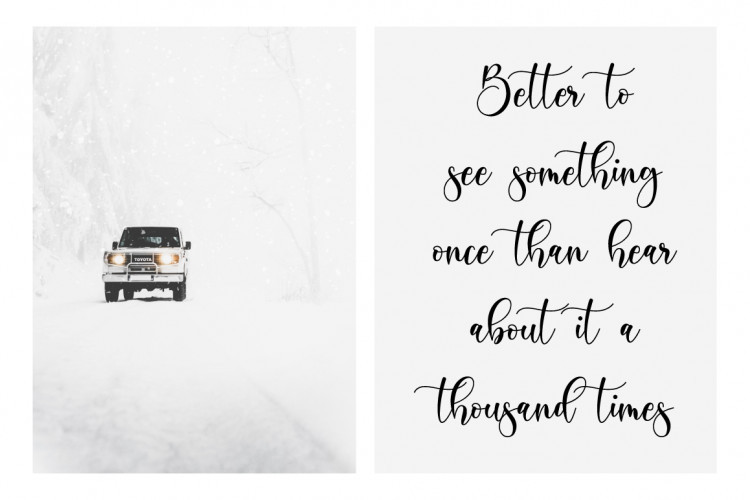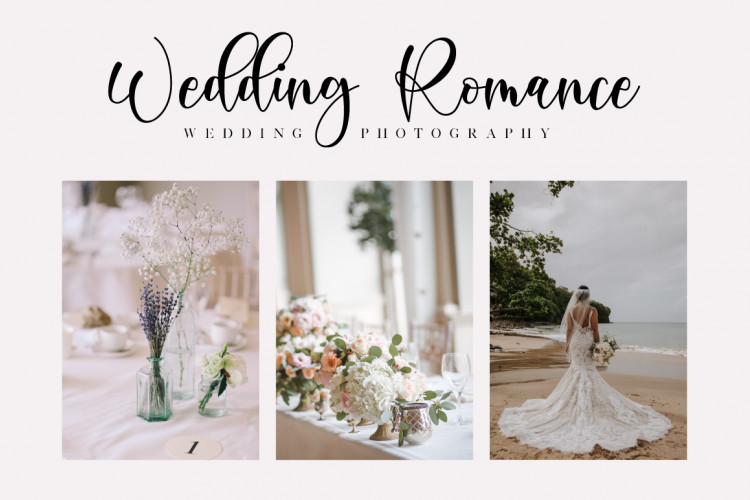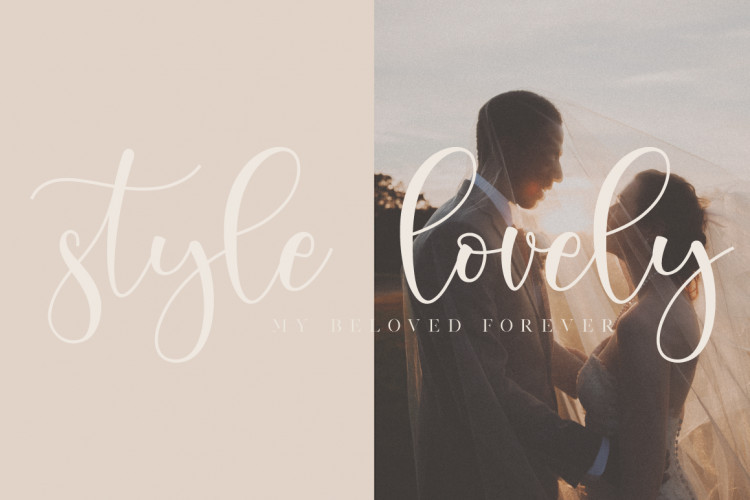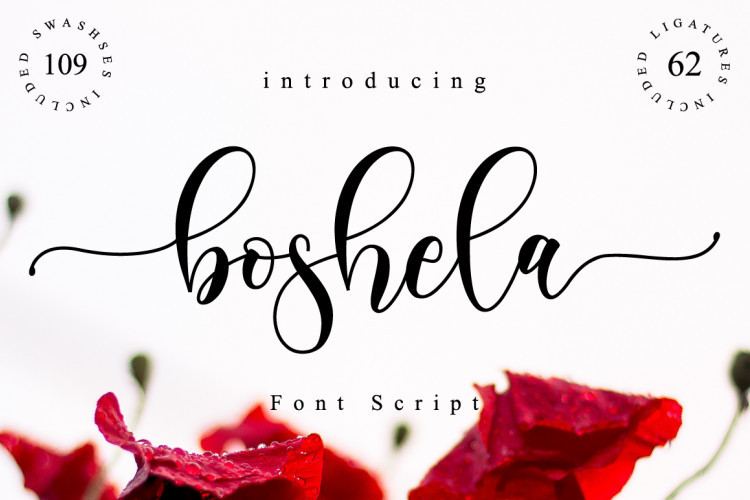
Boshela Script Font
Boshela Font is handwritten Modern calligraphy fonts, combines from copperplate to contemporary typeface with a dancing baseline, classic and elegant touch. The Boshela is a beautiful script font. It has a classy, elegant, and modern look which can be used for logos, branding, invitations, stationary, wedding designs, social media posts, and every other design which needs a handwritten touch.